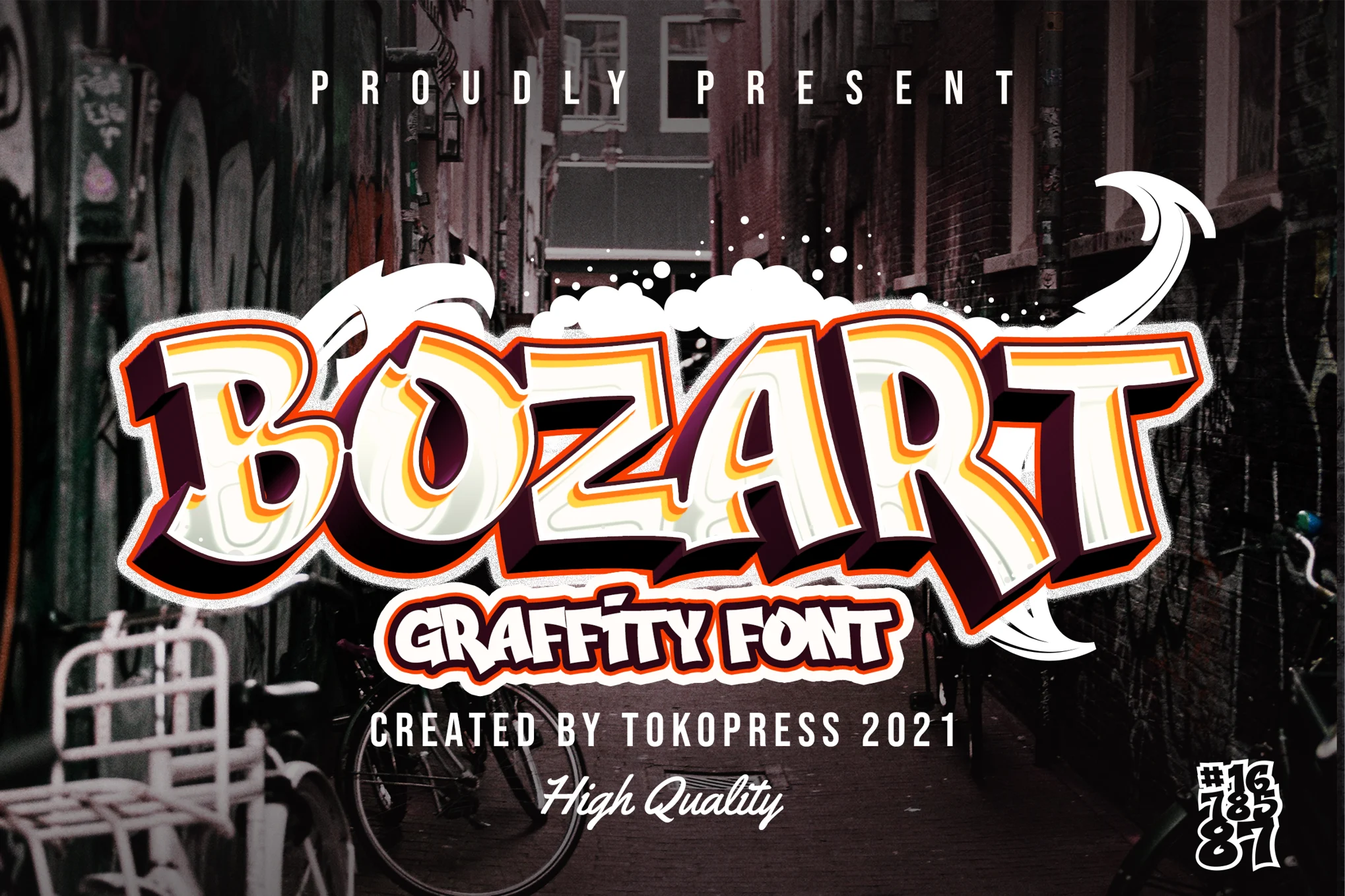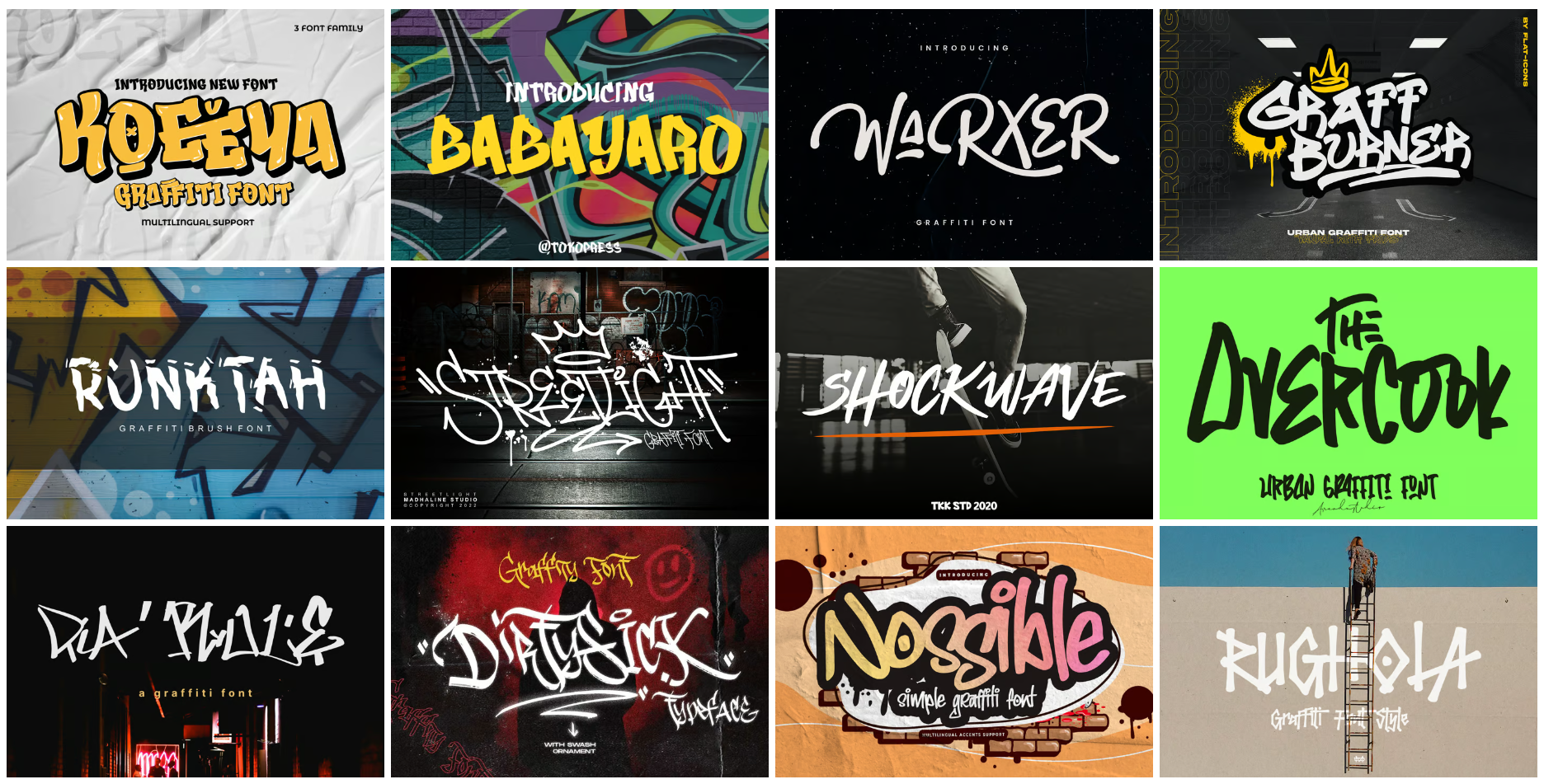
Do you want to add a strong, street feel to your designs? The best graffiti fonts provide a different and stylish way to add a copyright street feel to your designs. Whether your aim is to have a big, colourful font that is community oriented or one that is more rebellious and anti-establishment, There is a graff font for you.
What are the best among those fonts? Don’t go anywhere, we are just getting started. Let’s take a closer look to the best graffiti fonts that are trending in the design market
What is the best graffiti fonts?
The best graffiti font captures the street art’s dynamism, energy, creativity, and individuality, while at the same time being suited for your project’s needs. It should be a blend of original style and clear legibility whereby the essential functions of graffiti styles showing aggressive sweeping movement and urban influence are evident. A good custom graffiti font is ideal for a variety of circumstances owns the font style such as a perfect blend between fierce and community-based font styles and should be selected to suit the intended message best.
2. Fat Wandal Free Graffiti Font
Fat Wandals is a graffiti typeface designed by Måns Grebäck in 2018 that is extremely breathtaking. It has includes multiple alternate alphabets that simulate handwriting making your designs look more realistic. The font supports every language based on latin alphabet. There are also other ornamental symbols to work with your lettering. Please note that Fat Wandals is free for no cost personal use. However if you want to use it for business purposes you have to get a license for that.
3. Shock Blow – Layered Graffiti Font
Shock Blow is an immersive multi-layered styled font which is targeted to aid in integrating urban and street hip flavors into your projects scope. The font integrates swash characters and two style variations: solid and shadow.
Key Features:
Layered Design: Each font contains layers and that automatically makes it possible to wild combinations of those layers, thus making the font more enhanced, and more realistic – even a mash-up of two-dimensional text can appear stunning in a three-dimensional context.
Swash Characters: Added decorative characteristics like swash in graffiti lettering style provide much greater enhancement of the artwork designing pattern.
Versatility: Suitable for posters, for street art, for graphics with an urban feeling, and any project requiring a vigorous and anybody busting font style.
4. Humble Rought Free Graffiti Font
Humblle Rough is an authentic and fresh brush family font with urban character and lifestyle elements. The chaotically drawn and perfectly incorrect strokes create an organic feel which is perfect for use on wedding invites, and greeting cards, as well as branding elements, business cards, quotes, posters, etc.
5. BOZART – Graffiti Font
The BOZART font is somewhat extraordinary. It’s stunning in how its lines look and should work wonders in hip-hop themed designs. Built off the foundation of street art, the lines of this font appear to be hand-painted. If you are designing magazines, posters, or DVD covers then BOZART goes pretty well as a title or an accent. I would also assume it looks marvelous on social media banners.
Key Features:
Number of styles: This style can be used with great effect in a hip-hop theme or extreme sports related material.
Character Set: BOZART contains jumbled uppercase and lowercase letters, numbers, and every punctuation along with different language options allowing one to make varied designs.
6. Broster – a Graffiti Font
Broster is a fun font that recalls graffiti and belongs to Blankids Studio. Its bold and unusual letter forms make it suitable for work done for children such as comics, clothes and logos as well.
7. Street Hustle – Graffiti Font
Blankids Studio’s Street Hustle is a graffiti display font which evokes the colorful and ‘all over’ style of street art. Its bold and artistic letters also contribute intuitively to graffiti-style posters, hip hop music, kids’ books, entertainment graphics and comic books.